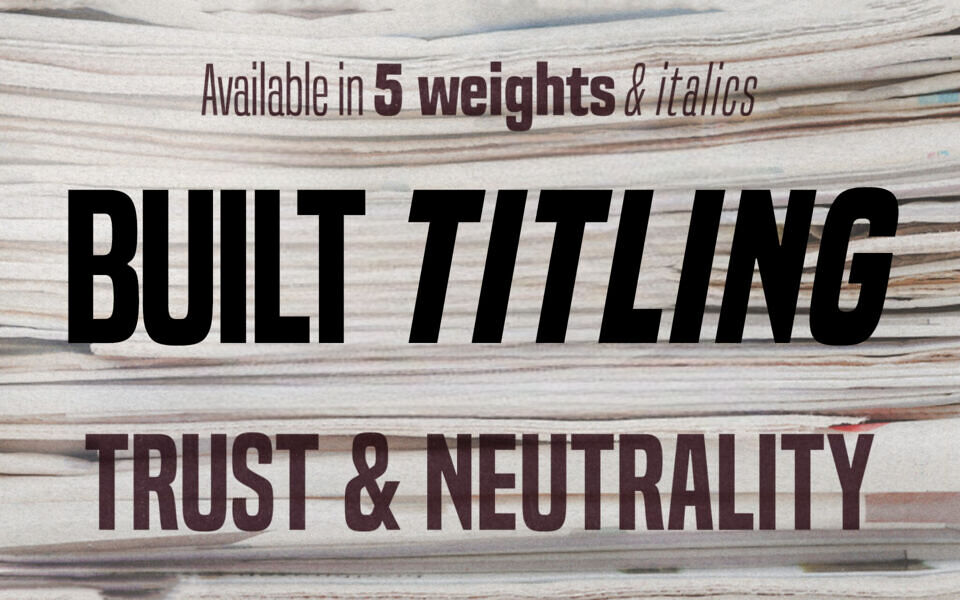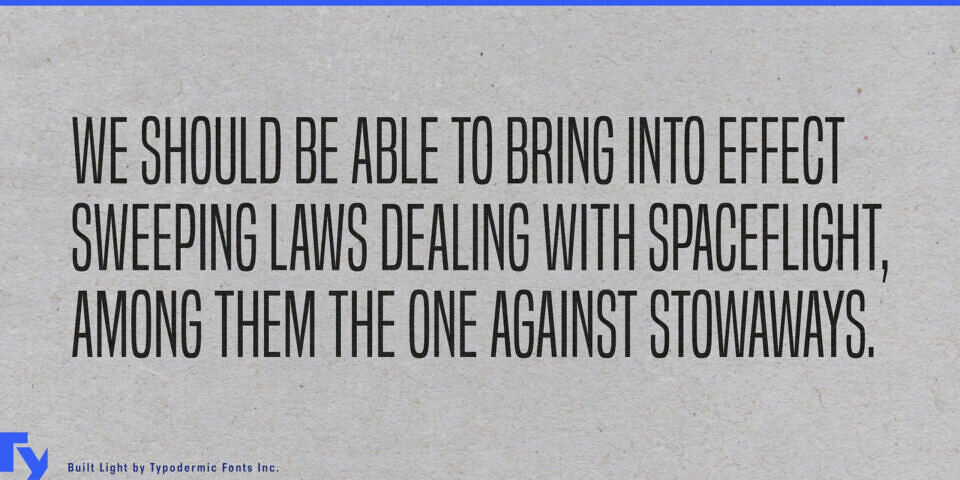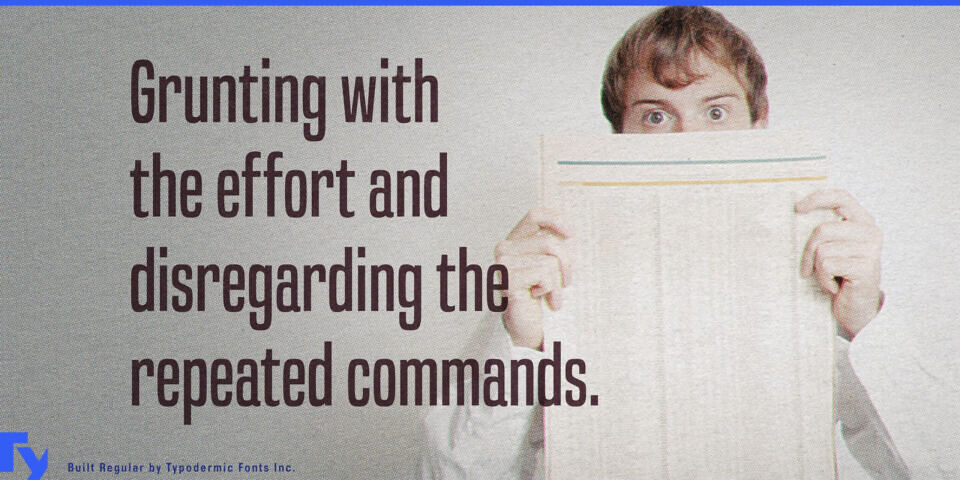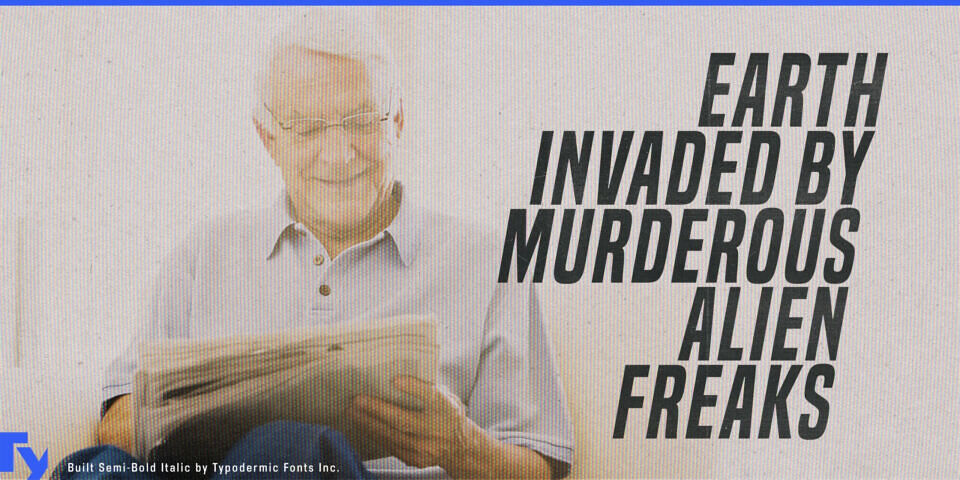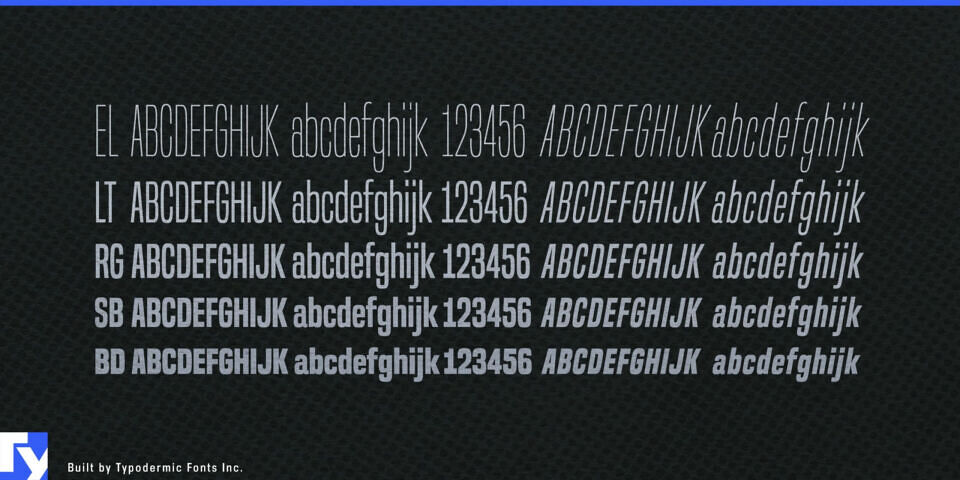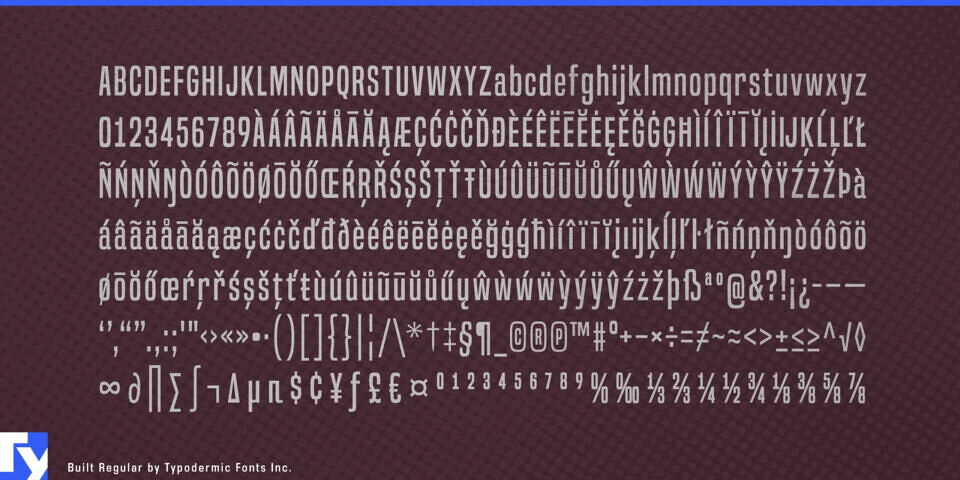
Built Titling is an all-caps display typeface rooted in classic newspaper design and refined for modern media. Its solid proportions and subtle curves convey authority and clarity across five weights from Extra-Light to Bold. The lighter styles narrow slightly to fit longer titles without sacrificing readability, while numerals and symbols align cleanly for data-driven layouts.
Supporting an extensive Latin character set, Built Titling suits global headlines, signage, and editorial design. Confident and disciplined, it delivers impact with restraint—ideal for strong statements in print or on screen.